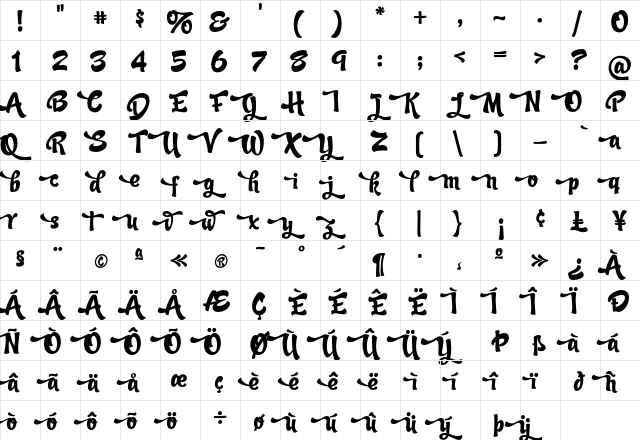
Candy Script Swash Regular
Regular · Alejandro Paul  ·
Design Context for Candy Script Swash Typeface
Candy Script Swash flows with the natural rhythm of handwritten lettering, making it ideal for designs that call for warmth and personal expression.
Font Pairing: Combine Candy Script Swash with a simple geometric sans for maximum contrast — the tension between flowing curves and clean structure is a classic typographic pairing.
Pro Tip: Pair Candy Script Swash with a clean sans-serif for supporting text. The contrast between fluid script and geometric structure creates an elegant typographic hierarchy.